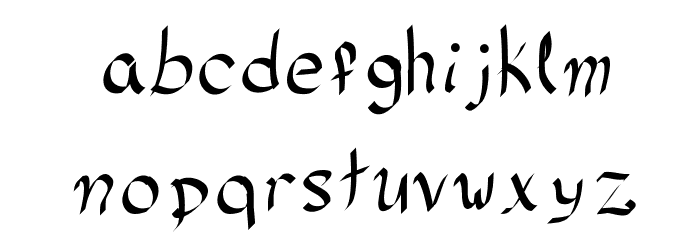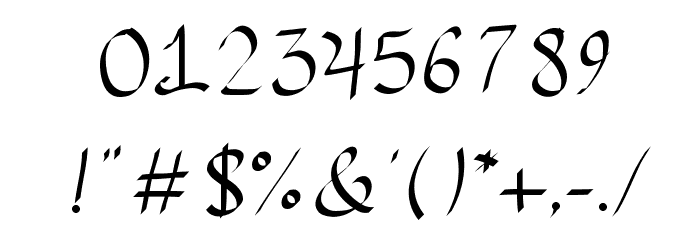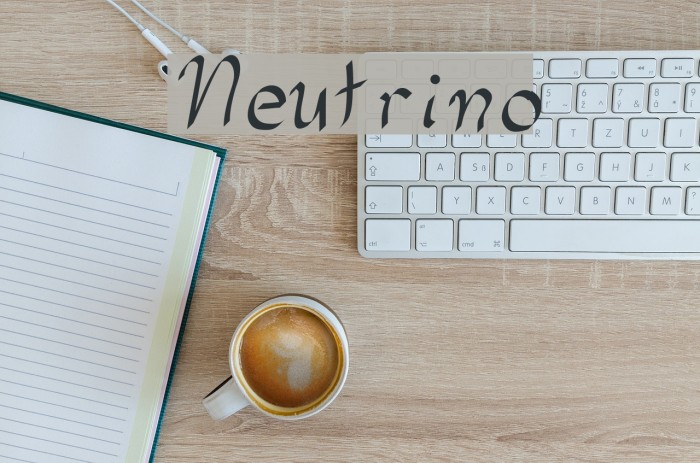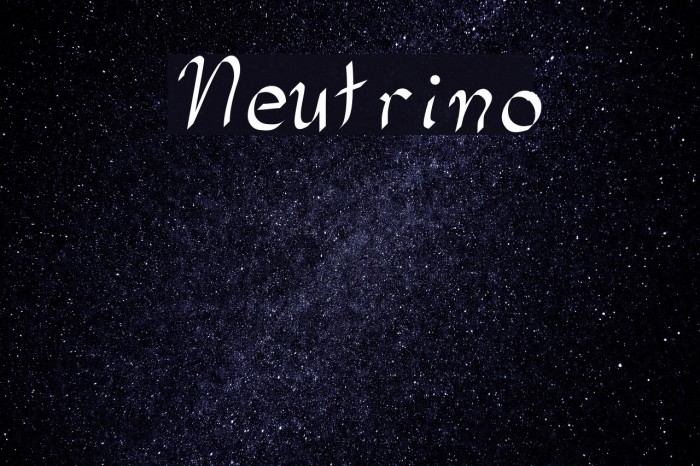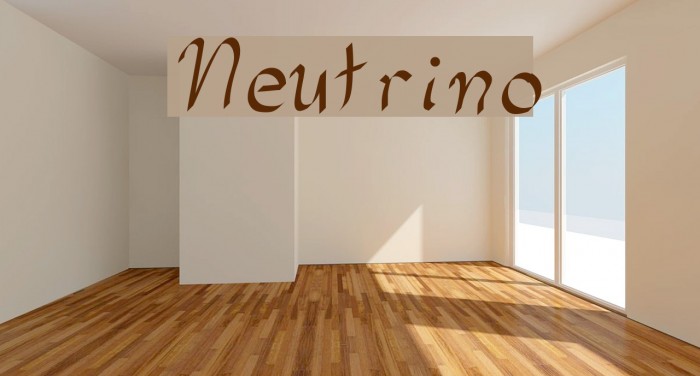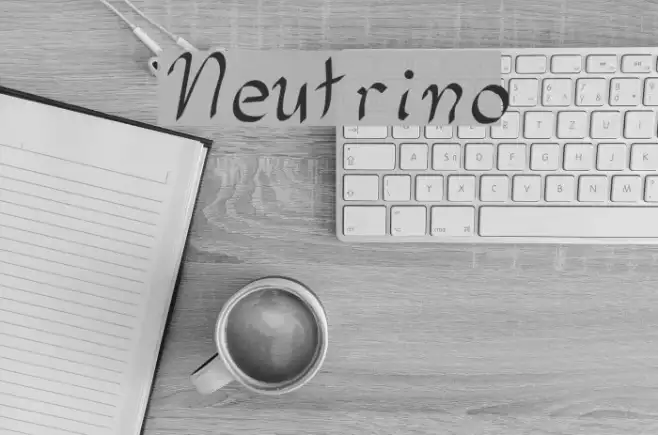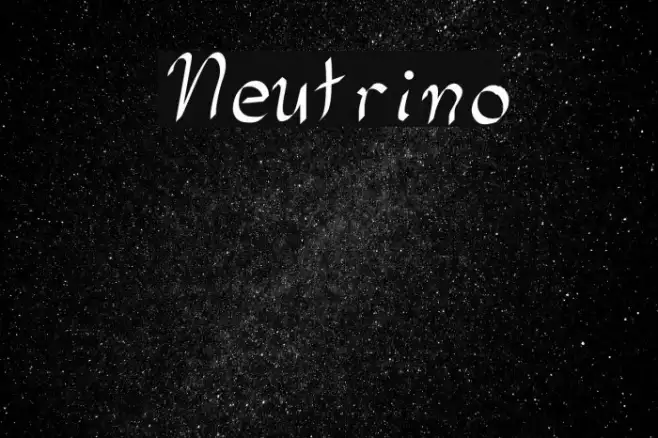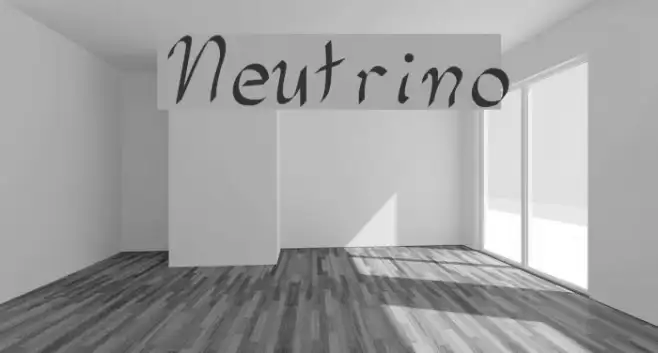
Neutrino Font
This font features a unique and artistic style with a calligraphic flair. The characters are elegantly crafted with a fluid motion, giving them a dynamic and lively appearance. The strokes vary in thickness, adding a sense of movement and energy. The uppercase letters are bold and prominent, while the lowercase letters maintain a consistent flow. The numerals and special characters are designed to complement the overall aesthetic, making them suitable for creative and expressive projects. This font is ideal for designs that require a touch of sophistication and creativity.
An artistic, calligraphic font with dynamic strokes and elegant style.
- Proposed Projects: Ideal for wedding invitations, greeting cards, artistic posters, and branding materials.
- Use Case: Logos, Invitations, Artistic Projects